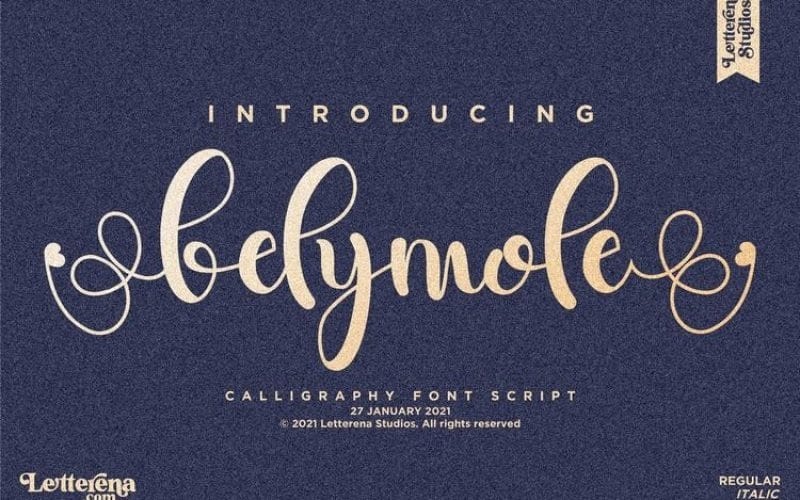
Belymole Font
Belymole Calligraphy Font is a delicate, elegant and flowing handwritten typeface. It’s designed and shared by Letterena Studios. It’s a beautiful font, suitable for any projects such as: logos, branding projects, homeware designs, product packaging, mugs, quotes, posters, shopping bags, t-shirts, book covers, name card, invitation cards, greeting cards, label, photography, watermark, special events, and all your other lovely projects that need a beautiful Script taste.